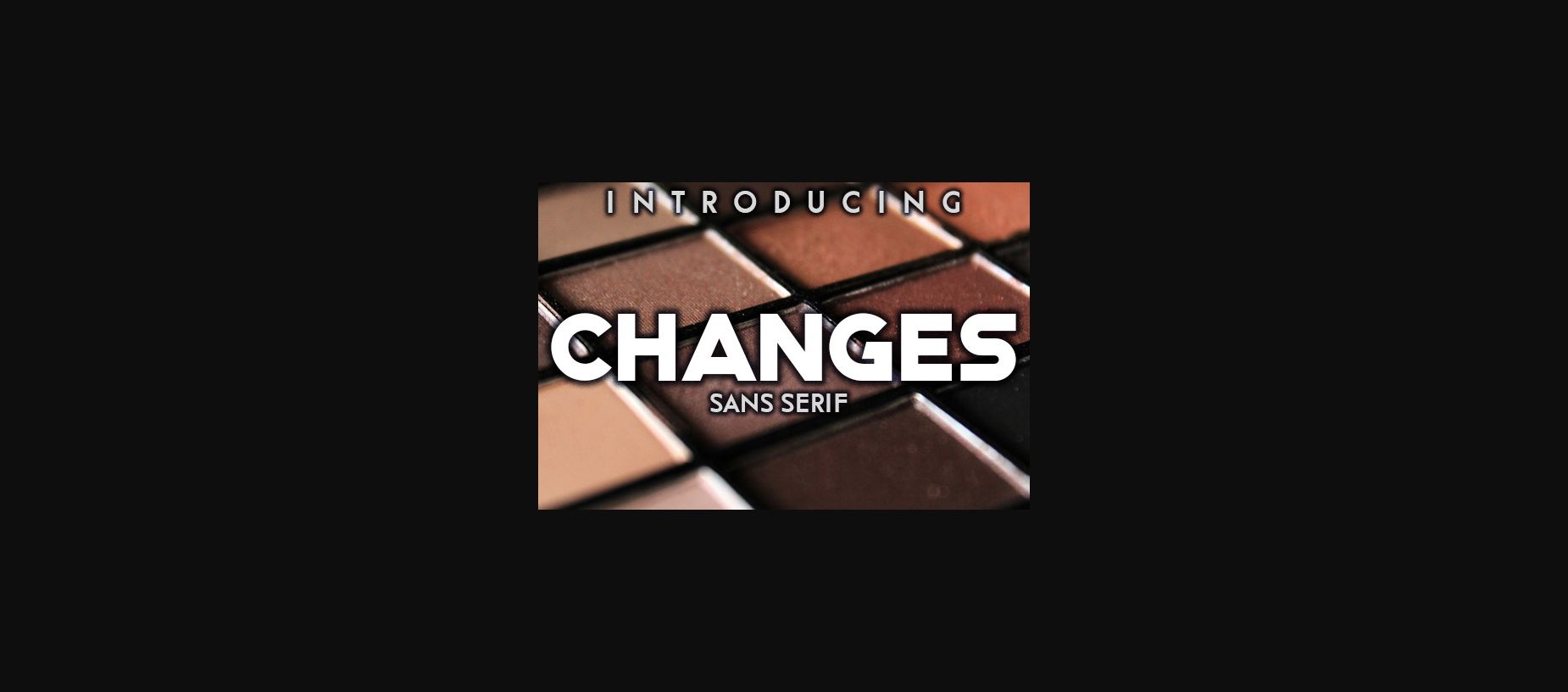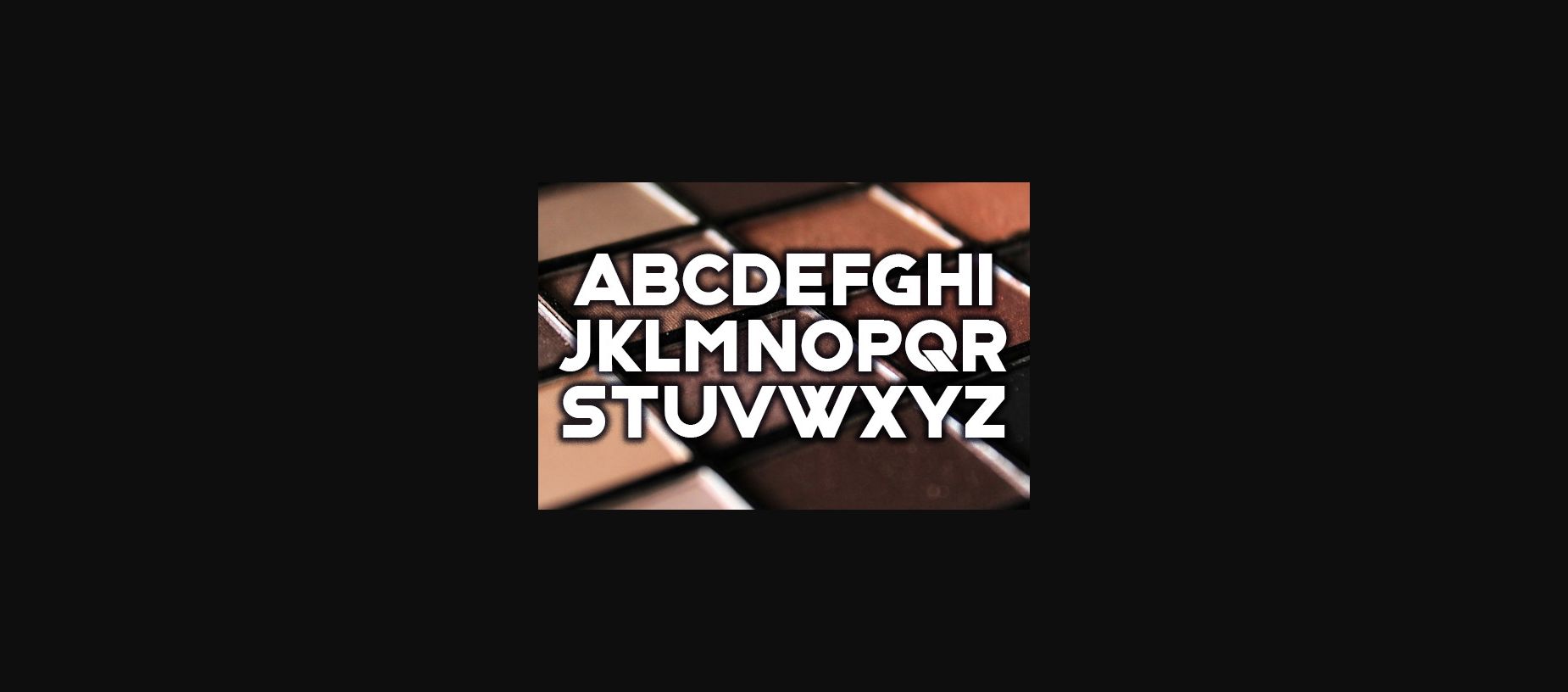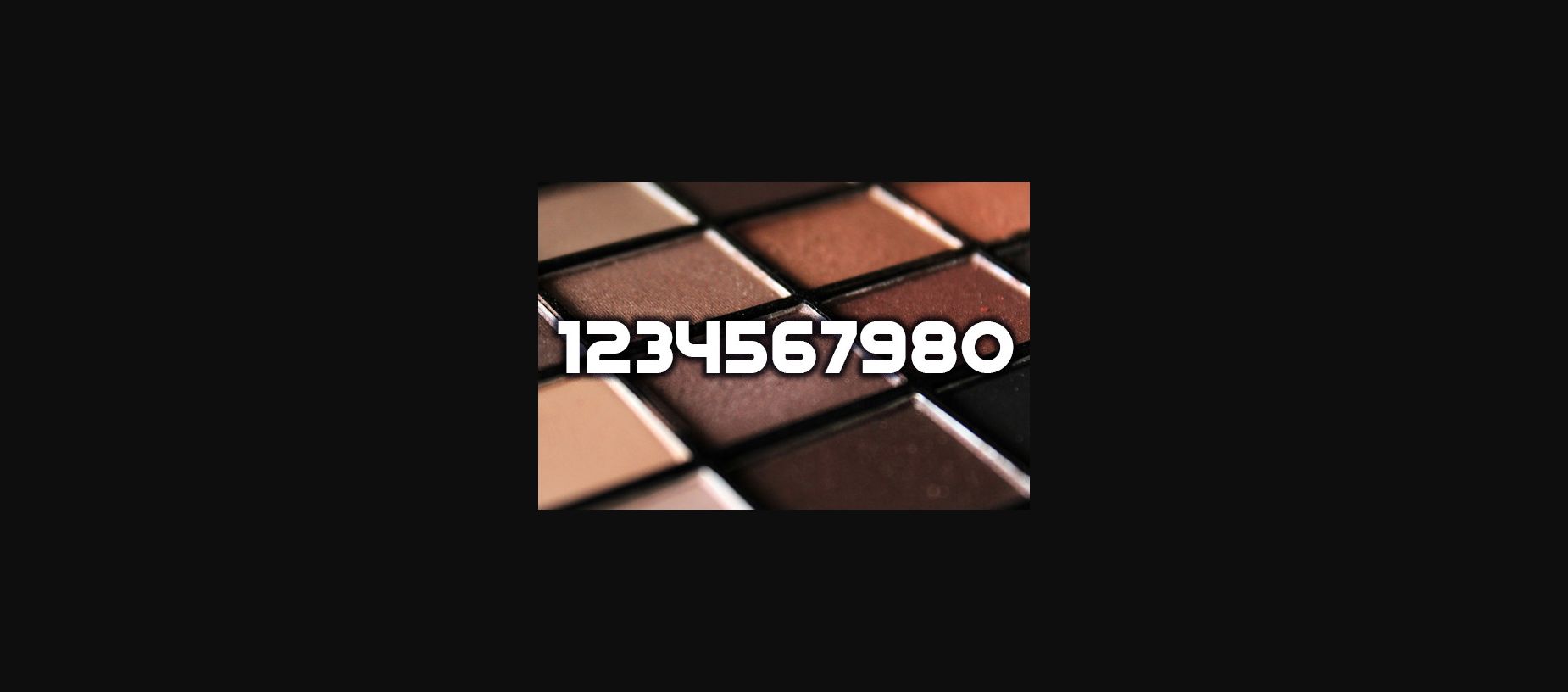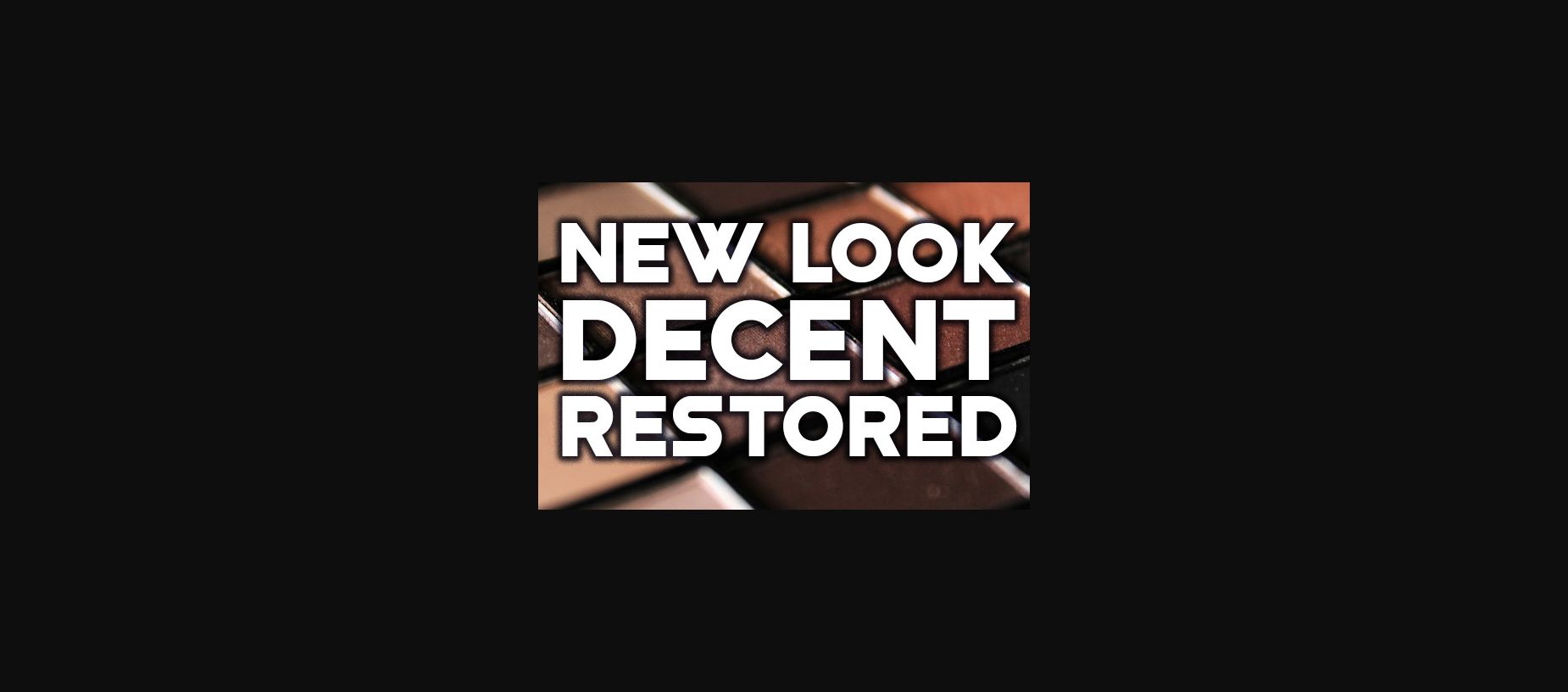
HomeSans Serif FontsChanges Font Sans Serif Fonts Changes Font FacebookXPinterestWhatsApp 1 of 6 ... Changes Font Poster 2... Changes Font Poster 3... Changes Font Poster 4... Changes Font Poster 5... Changes Font Poster 6... About Changes Font Changes is a stylish and authentic sans serif typeface that will fit on your best projects. Use this font on posters, flyers and t-shirts. DOWNLOAD NOW People also explored Nastar Font Boudelaire Font Squersmars Inclination Font Forest Marble Bella Canvas 3005 Mockup Eiffel Shine Font Snowman Font Spring Time Font Simple House Font 262 0 TagsChangesChanges Font Previous articleBackfired FontNext articleAtlantica Font LEAVE A REPLY Cancel reply Comment: Please enter your comment! Name:* Please enter your name here Email:* You have entered an incorrect email address! Please enter your email address here Website: Save my name, email, and website in this browser for the next time I comment. Personal Use Free Anders Personal Use Free Read more about this font Cuttie Personal Use Free Read more about this font Dolce Vita Personal Use Free Read more about this font The Winter Personal Use Free Read more about this font BLOG Free Fonts Risk: Why Free Fonts Can Be Dangerous for Designers Free Fonts Risk: Why Free Fonts Can Be Dangerous for Designers Using free fonts is a common practice in web and graphic design. However, the... Where to Buy American Fonts Online in 2024 To increase your work productivity, choose the most readable fonts. Best Fonts for T-Shirt Design – Top 2025 Picks